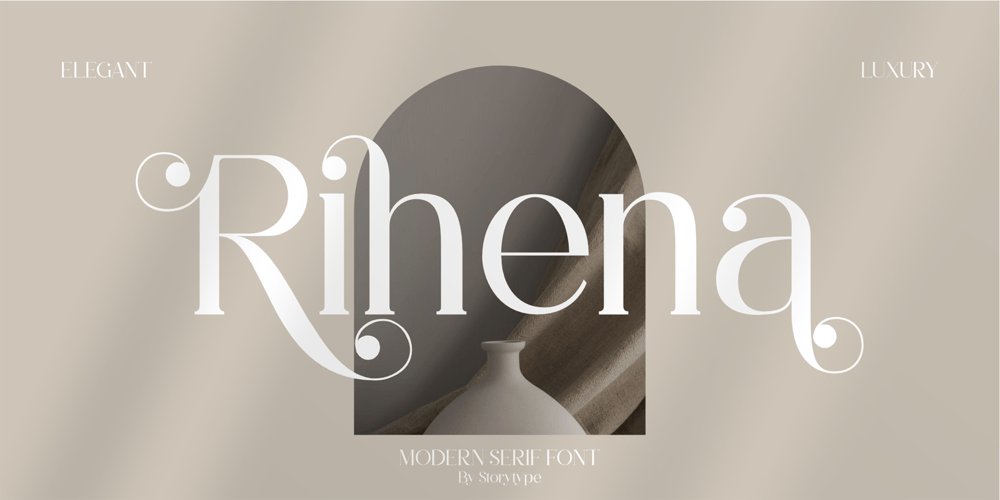
Rihena
Rihena font
Rihena Font Family was designed by Heru Utama Putra and published by Letterena Studios. Rihena contains 2 styles and family package options. Proudly present Rihena – modern and classic serif font featuring its own unique style and modern look.This typeface is perfect for an elegant & luxury logo, book or movie title, fashion brand, magazine, clothes, lettering, quotes, etc.This font is PUA encoded, which means you can access all of the glyphs and swashes with ease!